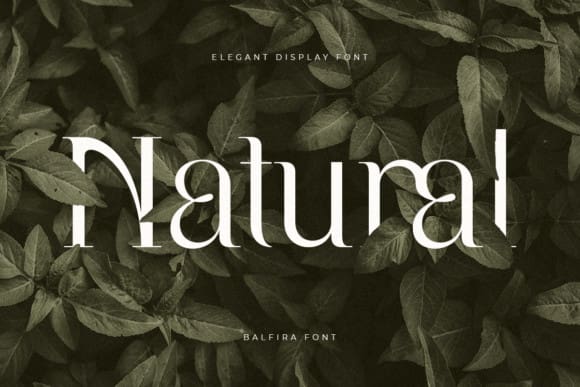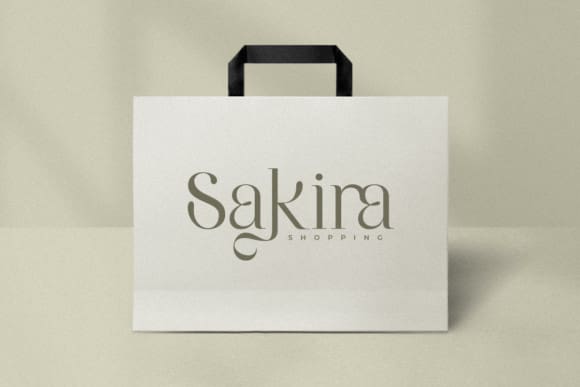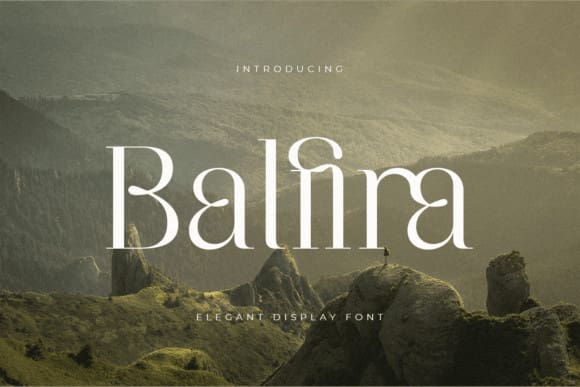
Balfira Serif Font
Balfira Serif Font is a stylish and elegant serif font that stands out with distinctive grace. Meticulously crafted letterforms embody timeless sophistication, setting it apart. Ideal for projects demanding a refined and unique typeface, Balfira adds a touch of classic elegance and individuality to your designs.